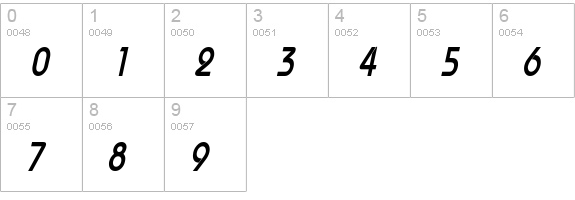
Bimini-Condensed Bold Italic Font Details
Bimini-Condensed Bold Italic is a strong, high-contrast, condensed-width, italic variant in the Bimini typeface family \xE2\x80\x94 well suited to headlines, attention-grabbing titles, and strong calls-to-action.
Bimini-Condensed Bold Italic is a sophisticated and modern typeface that exudes elegance and flair. This font is perfect for creating eye-catching headings, titles, and branding materials that demand attention. Its bold and italic design adds a touch of drama and personality to any project. What sets Bimini-Condensed Bold Italic apart is its versatility and readability, making it suitable for a wide range of design applications. Whether you're designing a magazine layout, a logo, or a website, this font will make your text pop and stand out. The best part is that Bimini-Condensed Bold Italic is available for free download at FontsMarket.com. This means you can easily access this stunning font and elevate your designs without breaking the bank. Don't miss out on the opportunity to enhance your projects with the timeless elegance of Bimini-Condensed Bold Italic. Download it now and let your creativity soar!